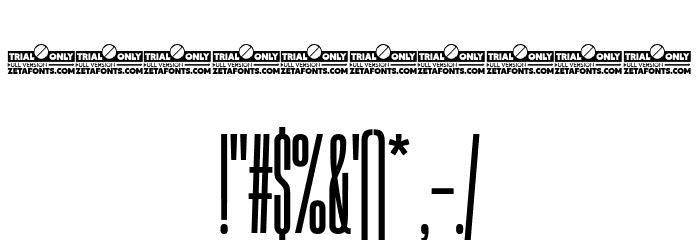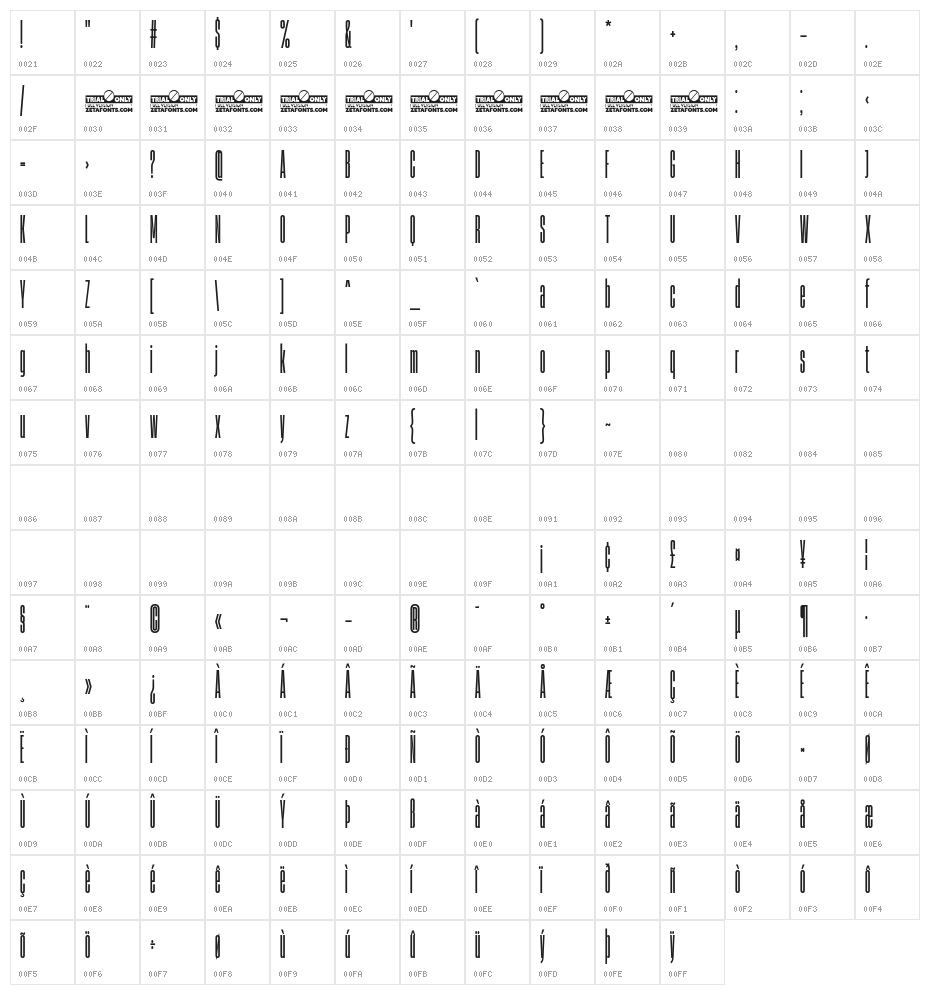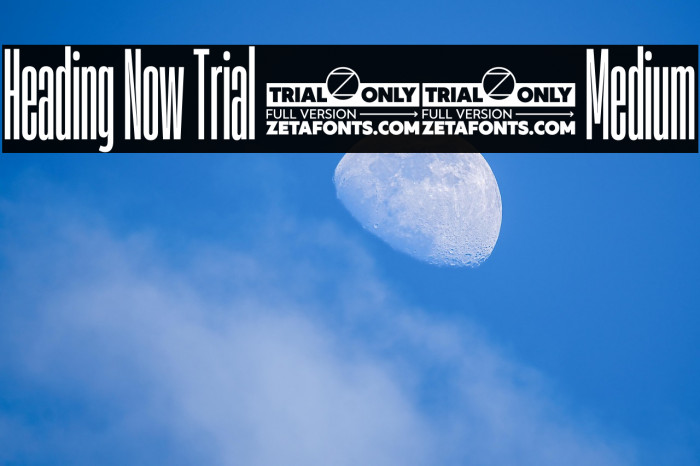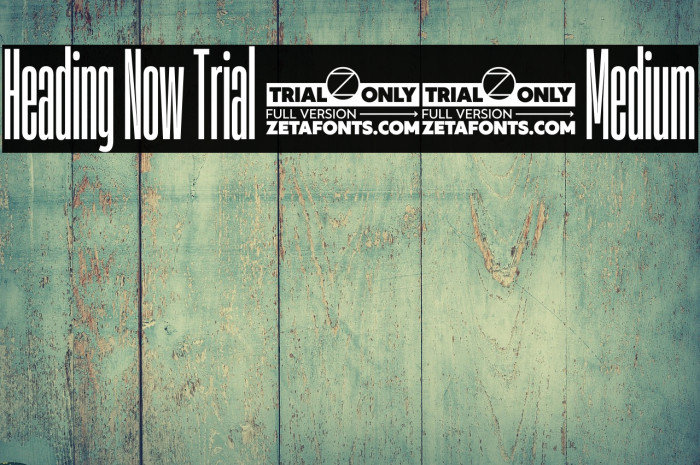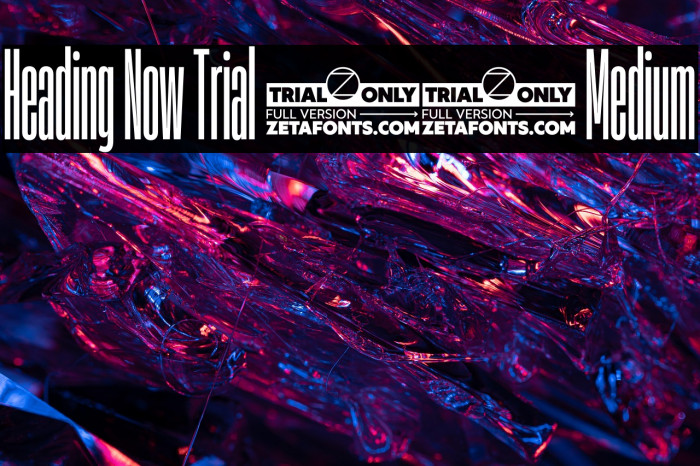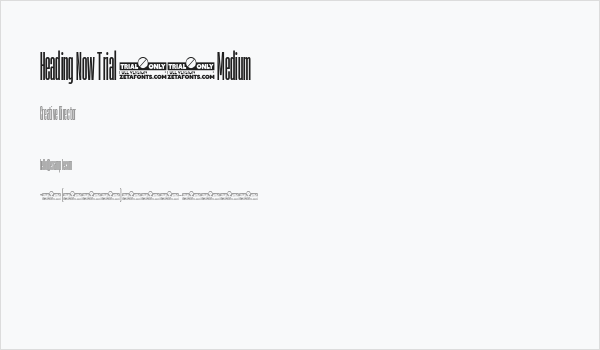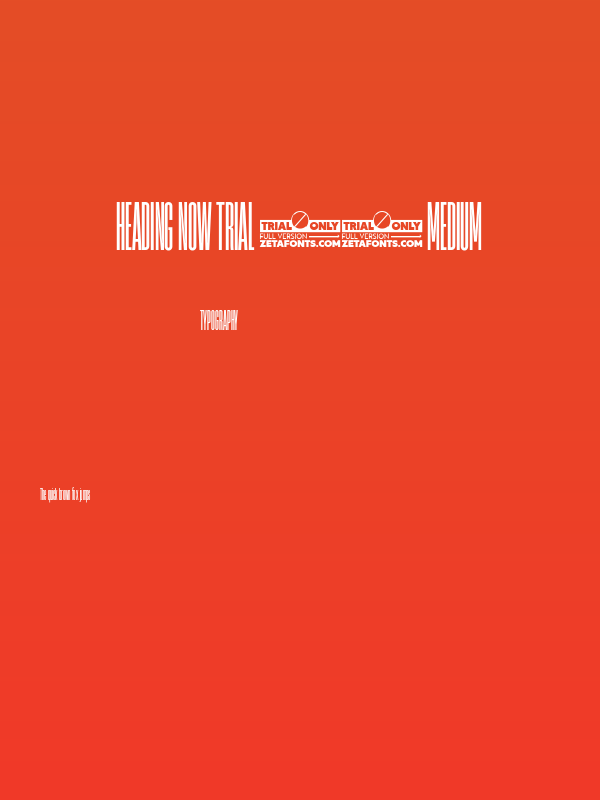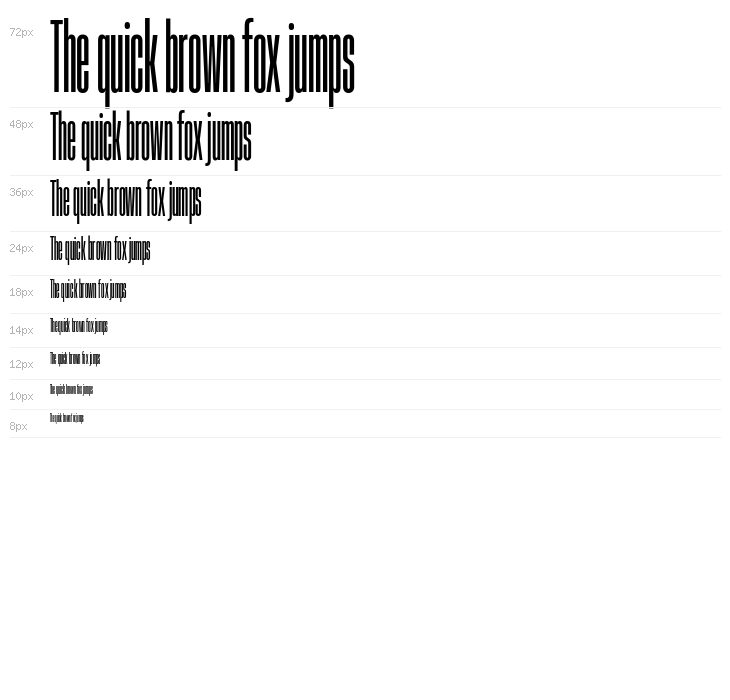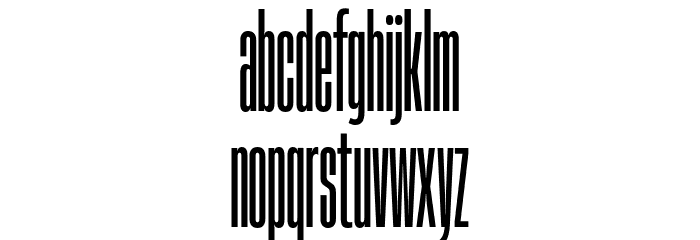
Heading Now Trial 05 Medium Font
Heading Now Trial 05 Medium Description
This font features a tall, condensed style with a modern and sleek appearance. The uppercase letters are uniform in height, creating a cohesive and structured look. The lowercase letters maintain the same condensed form, enhancing readability while preserving the font's unique style. The numerals and special characters are designed to match the overall aesthetic, providing a consistent visual experience. This font's narrow width and high contrast in stroke thickness give it a bold and impactful presence, making it suitable for attention-grabbing headlines and titles.